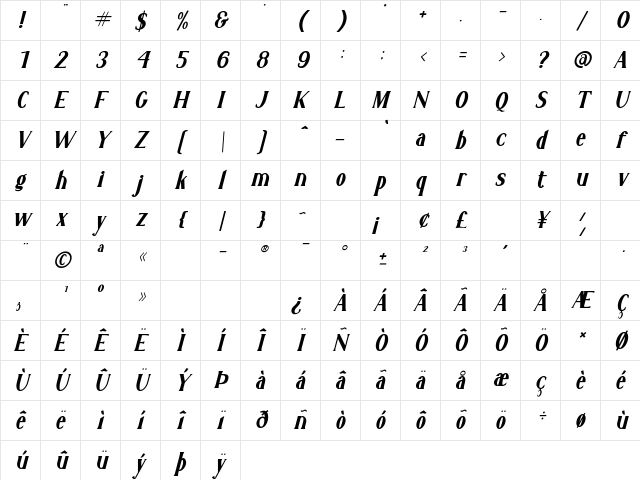
Charlotte Giselle Italic Regular
Foundry: Display Studio
Designer: Display Studio
Design Context for Charlotte Giselle Italic
Charlotte Giselle Italic is a composed and adaptable typeface that performs quietly and consistently across a wide range of design contexts. The slanted form adds forward momentum and visual energy.
Pro Tip: Use Charlotte Giselle Italic for emphasis, pull quotes, and subheadings where its slanted energy can add rhythm to the layout.